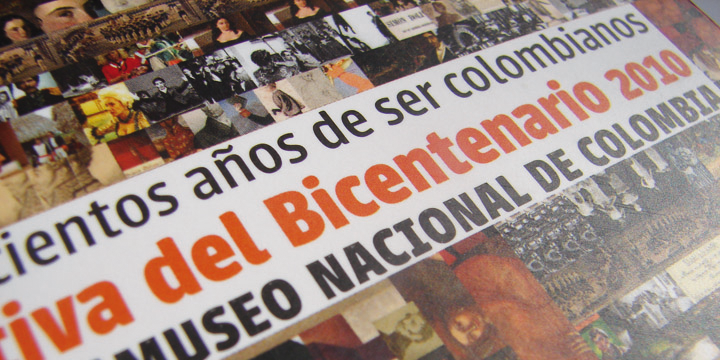
Urbana Free Download
Embrace the spirit of modern urbanity with Urbana Font Free Download – a sleek, architectural sans-serif that captures the clean lines and dynamic energy of contemporary city life. This versatile typeface balances geometric precision with humanist warmth, making it ideal for sophisticated branding and editorial designs that demand both clarity and character.
Why Urbana Excels in Urban Design:
7 Weight System from Hairline to ExtraBold
True Italics with subtle calligraphic influence
Optimized Letter Spacing for perfect urban rhythm
Multilingual Support for global applications
Perfect Metropolitan Applications:
Smart city technology branding
Architecture firm identities
Urban lifestyle magazines
Contemporary wayfinding systems
Sophisticated web interfaces
Complete Latin character set
Advanced OpenType features
Tabular and proportional numerals
Design Tip: Layer different weights with photographic cityscapes for dramatic typographic compositions. The light weights work exceptionally well for luxury real estate marketing.